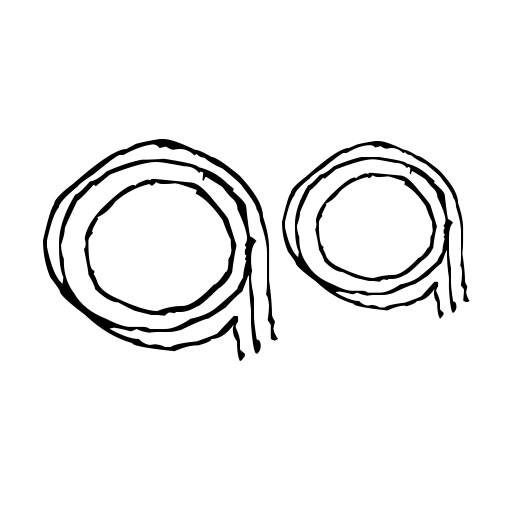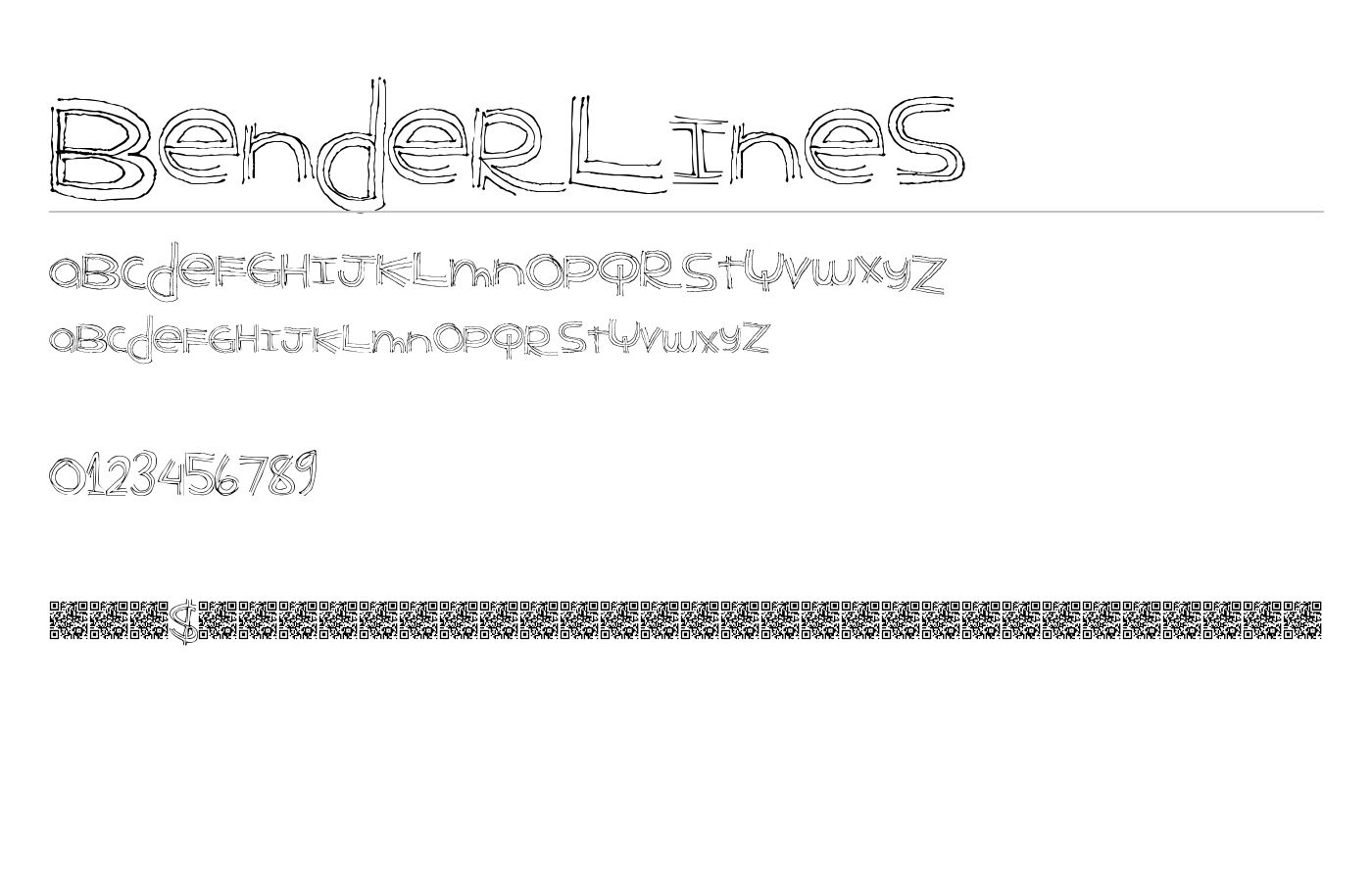
BenderLines is a playful and artistic sans serif font characterized by its hand-drawn, sketch-like double-line strokes that create a dynamic and slightly irregular look. Its light weight and quirky letterforms give it a casual, creative vibe, making it ideal for whimsical branding, posters, and informal design projects that seek a unique, handcrafted feel. This font works best in display cases where its distinct personality can shine without sacrificing readability.
BenderLines Font
About BenderLines Font